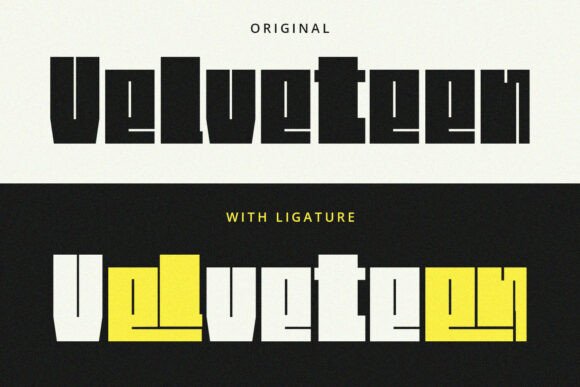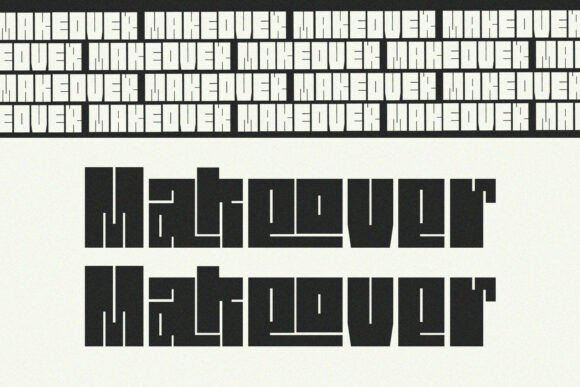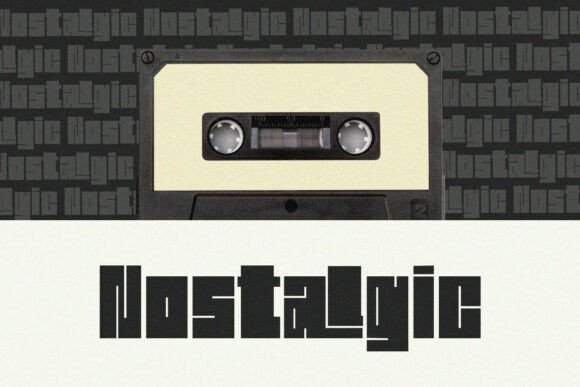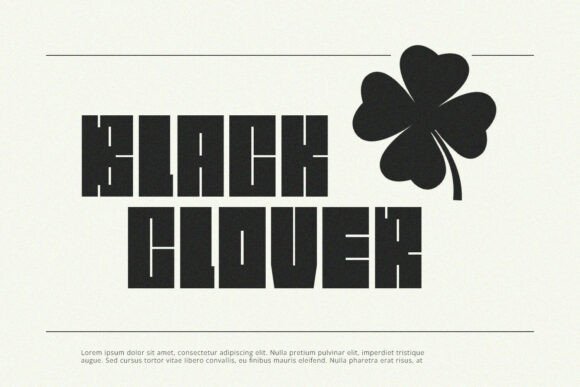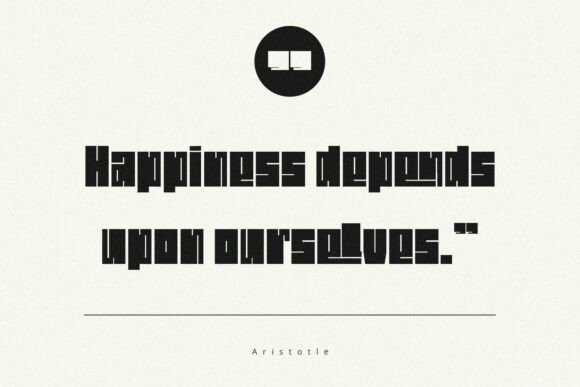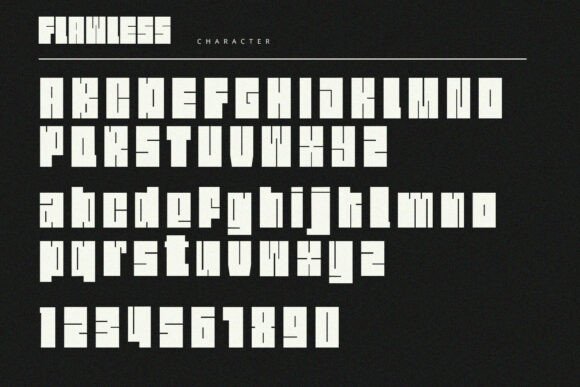
The Perfect Design Companion: Flawless Font
Have you ever been working on a design project, staring at a blank canvas, and suddenly, a burst of creativity strikes? The words start flowing, the ideas start pouring, and before you know it, your design is taking shape. This is the magic of design, and it’s a feeling that every creative person knows and loves.
For designers looking to add a touch of modernity and sophistication to their work, we’re excited to introduce the Flawless Font, a bold display font that’s sure to make a statement. With its futuristic feel, the Flawless Font is perfect for branding, logo design, lettering, and more. Whether you’re designing for clothing, posters, magazines, or packaging, this font is sure to elevate your work and leave a lasting impression.
As a valuable addition to any designer’s toolkit, the Flawless Font offers endless possibilities and creative freedom. With its versatility and modern aesthetic, it’s the perfect companion for designers looking to create truly flawless designs.
Key Features of Flawless Font
- Font Family: Flawless Font is a high-quality, professional font family available in 6 different styles: Regular, Bold, Italic, Bold Italic, Outline, and Shadow.
- Unique Characteristics: Flawless Font features a unique, modern design with clean lines, precise curves, and a subtle flair, making it perfect for corporate branding, marketing materials, and digital products.
Designer Review: Flawless Font
As a designer, I was excited to try out the Flawless Font, but my experience was a mix of excitement and disappointment. ✨ One of the things that really stood out to me was the font’s sleek and modern aesthetic. It’s perfect for any project that requires a touch of sophistication and elegance.
Here are some of the features that I loved about the Flawless Font:
- ✨ High-quality typography: The font is incredibly clear and easy to read, even at small sizes.
- ✨ Versatility: Flawless Font works well in a variety of contexts, from headings to body text.
- ✨ Customization options: The font comes with a range of customization options, including font sizes, colors, and line heights.
- ⚠️ Limited character set: The font only includes a limited set of characters, which may not be suitable for projects that require a wide range of symbols or special characters.
Overall, I would give the Flawless Font 3.5 out of 5 stars. While it’s a great choice for certain projects, its limitations may make it less suitable for others. With a bit more development and refinement, I think this font could be truly flawless!
Tips for Getting the Most Out of Flawless Font
Use Flawless Font for titles and headings to create a professional and elegant look.
Combine Flawless Font with other fonts to create a unique and visually appealing design.
Experiment with different font sizes and styles to create contrast and hierarchy in your design.
Flawless Font is ideal for:
Business cards and resumes
Marketing materials and brochures